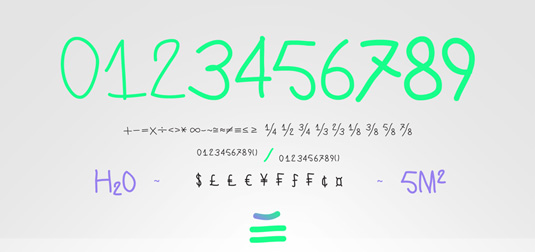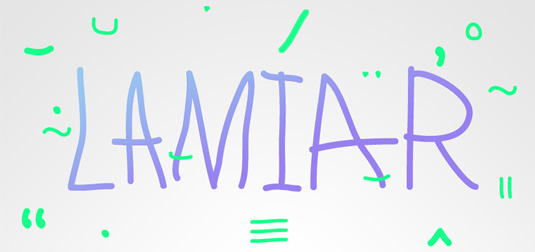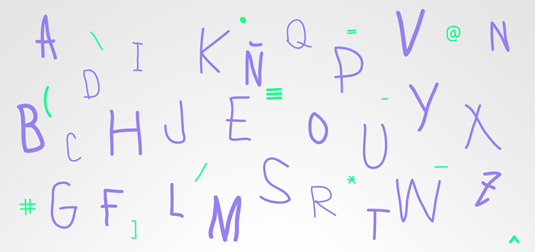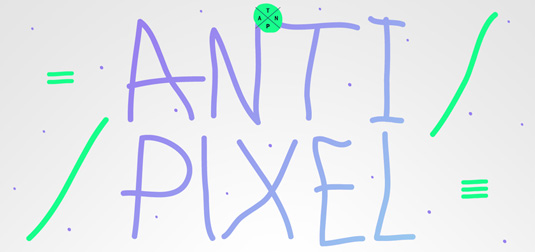
Lamiar by Julia Martinez Diana
Created by graphic design student Julia Martinez Diana, Lamiar is a decorative, fun, san serif handwritten font. Available from MyFonts, the typeface is described as being a 'rounded monoline font' that 'will add a fancy, weird and unique look to your work'.